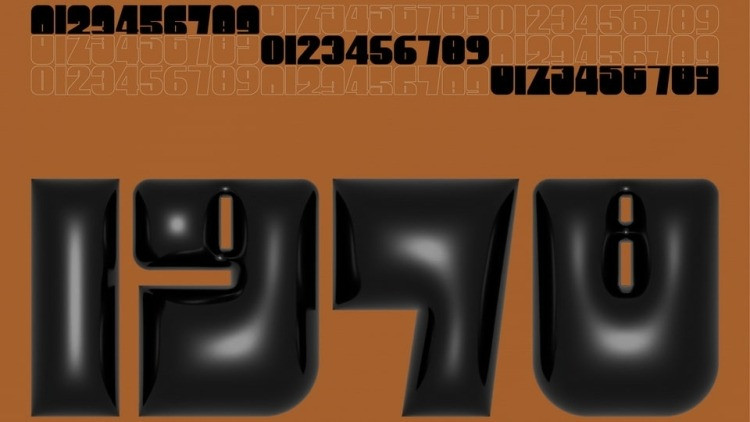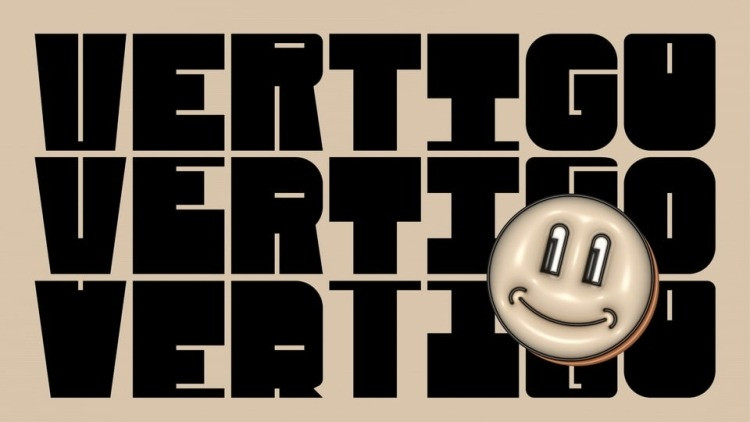
Vertigo Font
Vertigo Display Font is an all caps display sans-serif font, with three alternatives of midline heights for each glyph. It is a font with a retro soul, with which to have fun creating new combinations all the time.